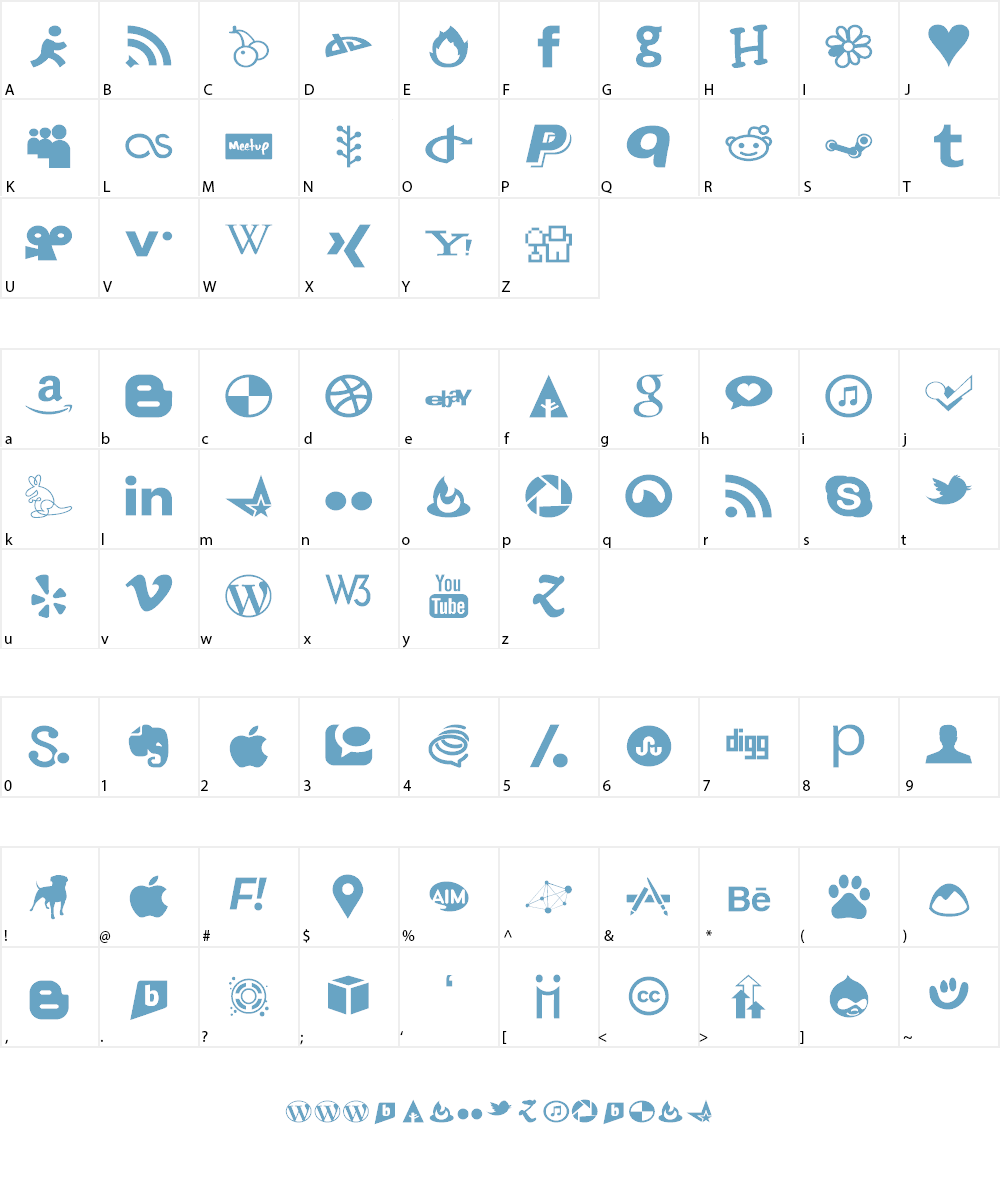
This font contains the most comprehensive social icon set available on the net. This is an open source project available at https://github.com/energee/social_font_face.